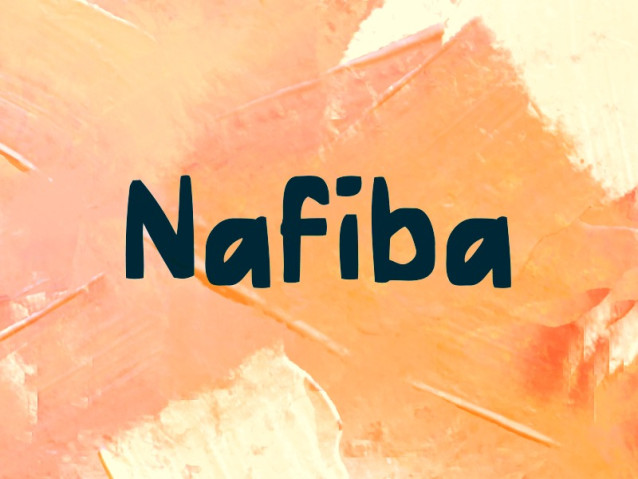
Nafiba Font
Nafiba Font is a simple and modern display font suitable for quotes, logos, headings, titles, and many more. Use it on any of your creative projects, and your designs will become outstanding!